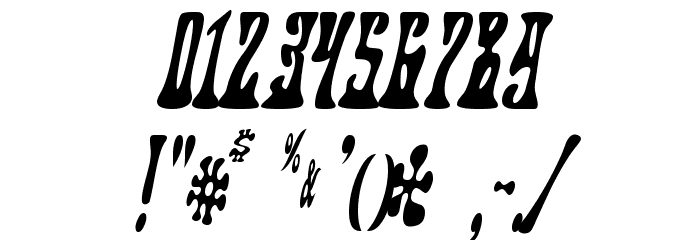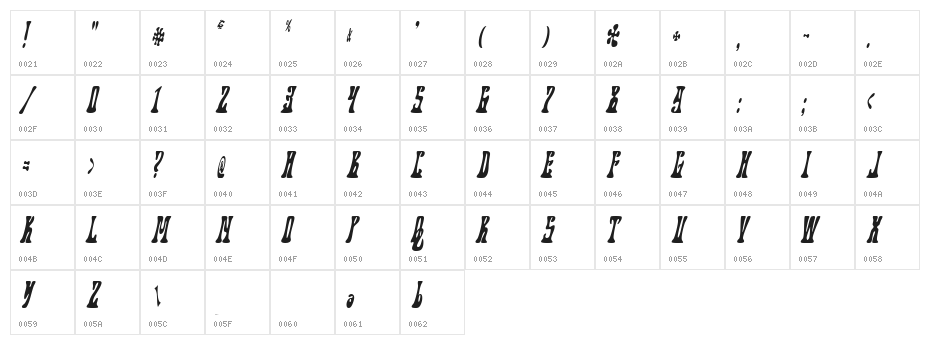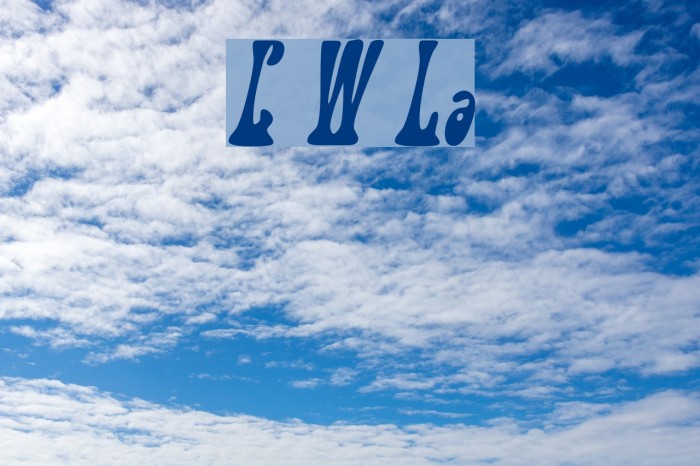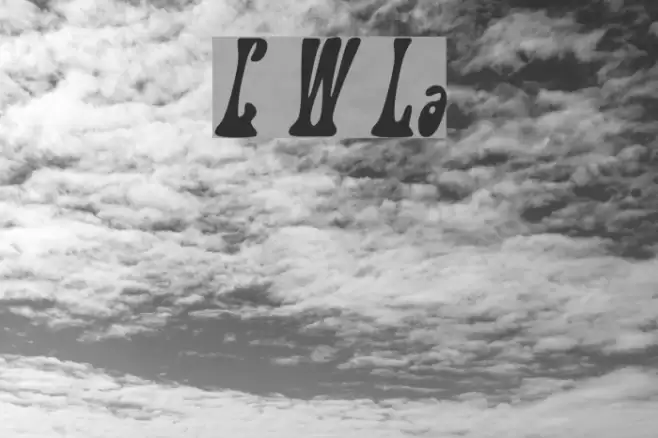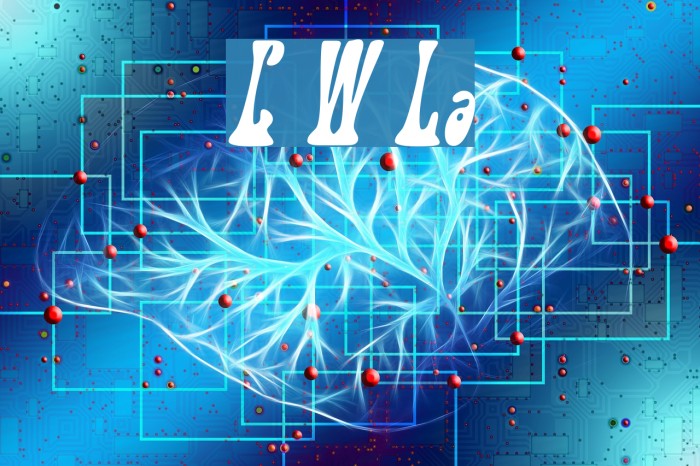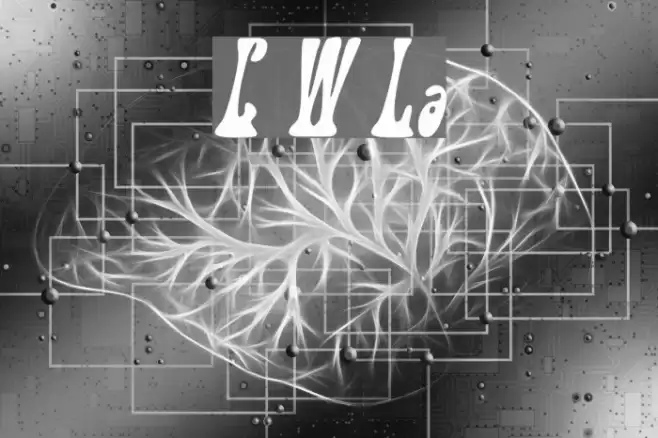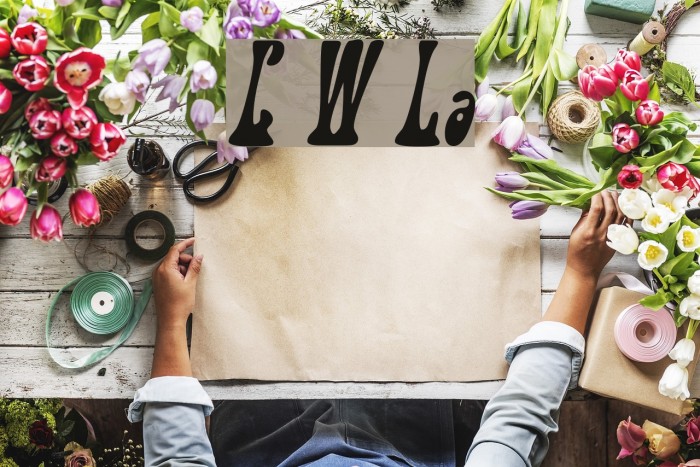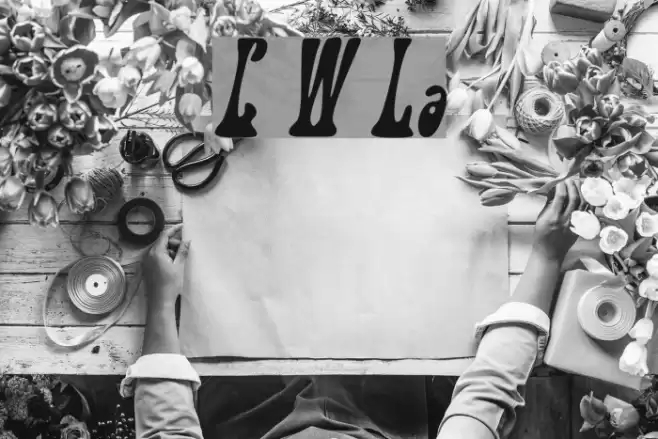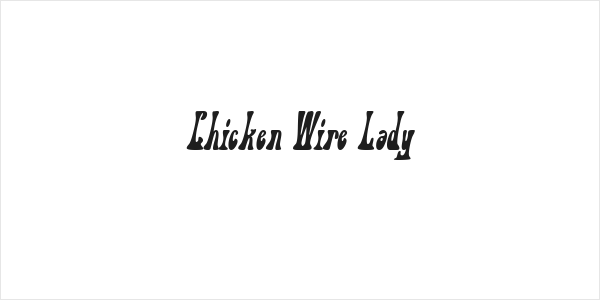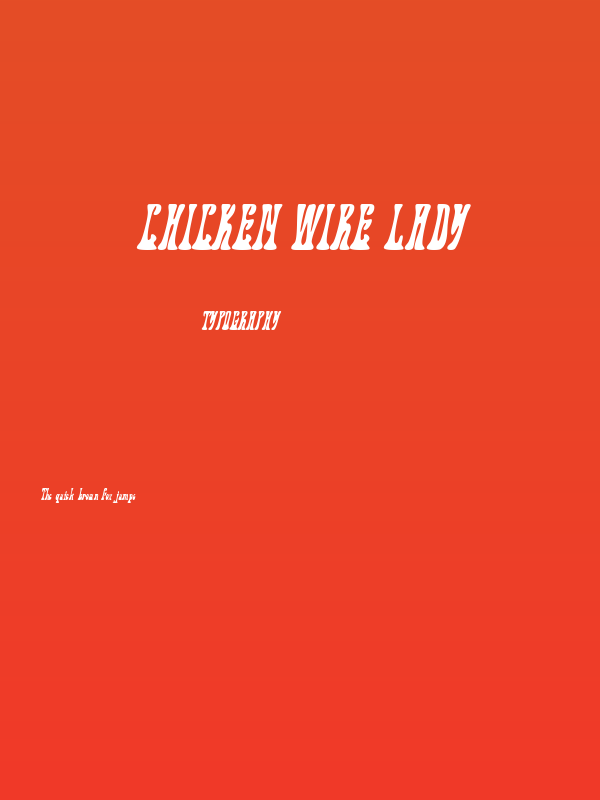
Chicken Wire Lady Font
Chicken Wire Lady Description
This font features a bold and dynamic style with a distinct wave-like pattern in each character, giving it a unique and playful appearance. The letters are heavily stylized with thick strokes and a high contrast between thick and thin lines, creating a sense of movement and energy. The uppercase letters are tall and narrow, while the lowercase letters maintain a consistent flow, enhancing the whimsical nature of the design. The numbers and special characters follow the same stylistic cues, ensuring a cohesive look across all elements.
| Proposed Projects | Ideal for creative projects such as posters, album covers, or branding for playful and energetic brands. |